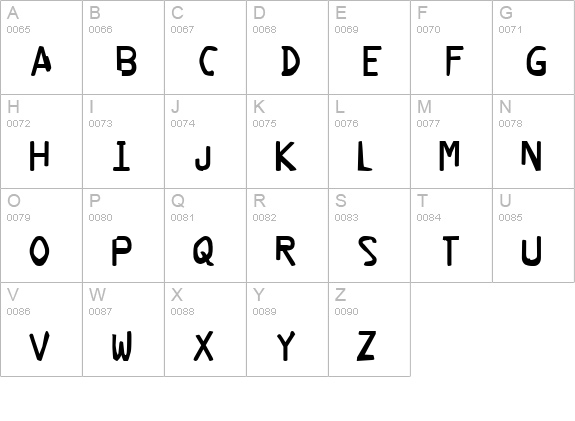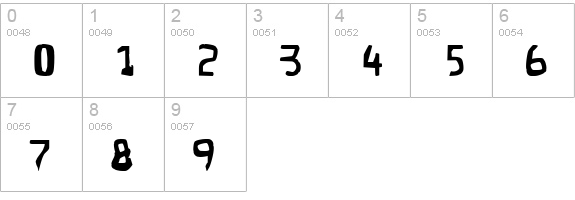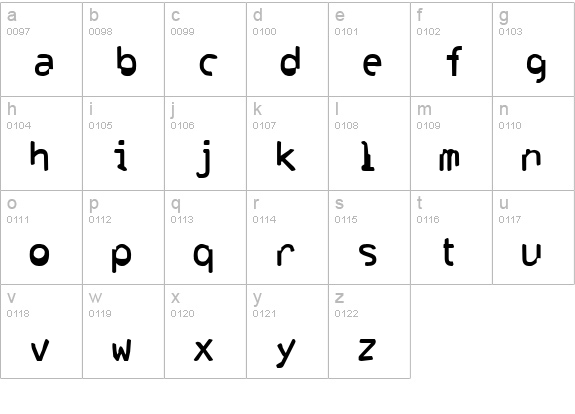
Corrupter Font Details
Corrupter font is a bold and edgy typeface that exudes a sense of rebellion and intrigue. Its jagged lines and distorted letters give off a rebellious vibe, perfect for adding a touch of attitude to your designs. Whether you're creating posters, album covers, or branding materials, Corrupter font is sure to make a statement. What sets Corrupter font apart is not only its unique design but also the fact that it is available for free. That's right, you can download this striking font for no cost at all on FontsMarket.com. With its eye-catching style and easy accessibility, Corrupter font is a must-have for any designer looking to add a touch of edge to their projects. Don't miss out on this exciting opportunity to elevate your designs with Corrupter font today!